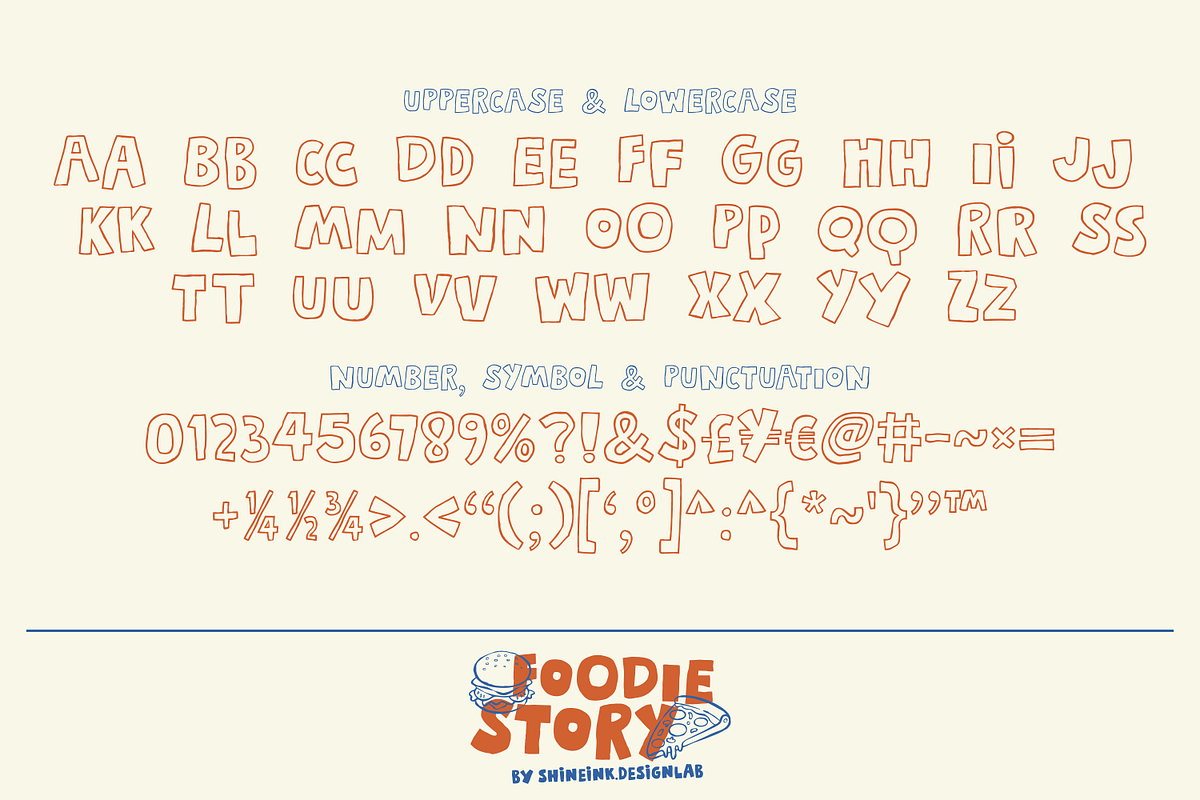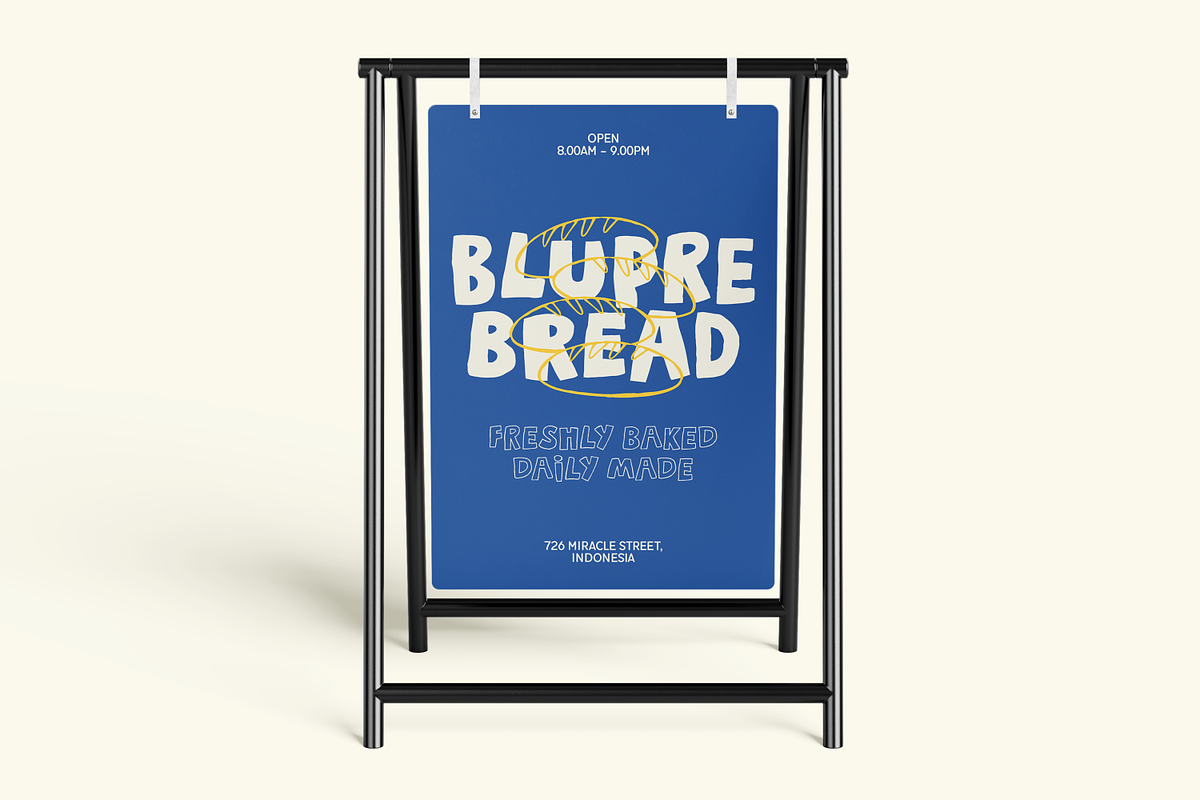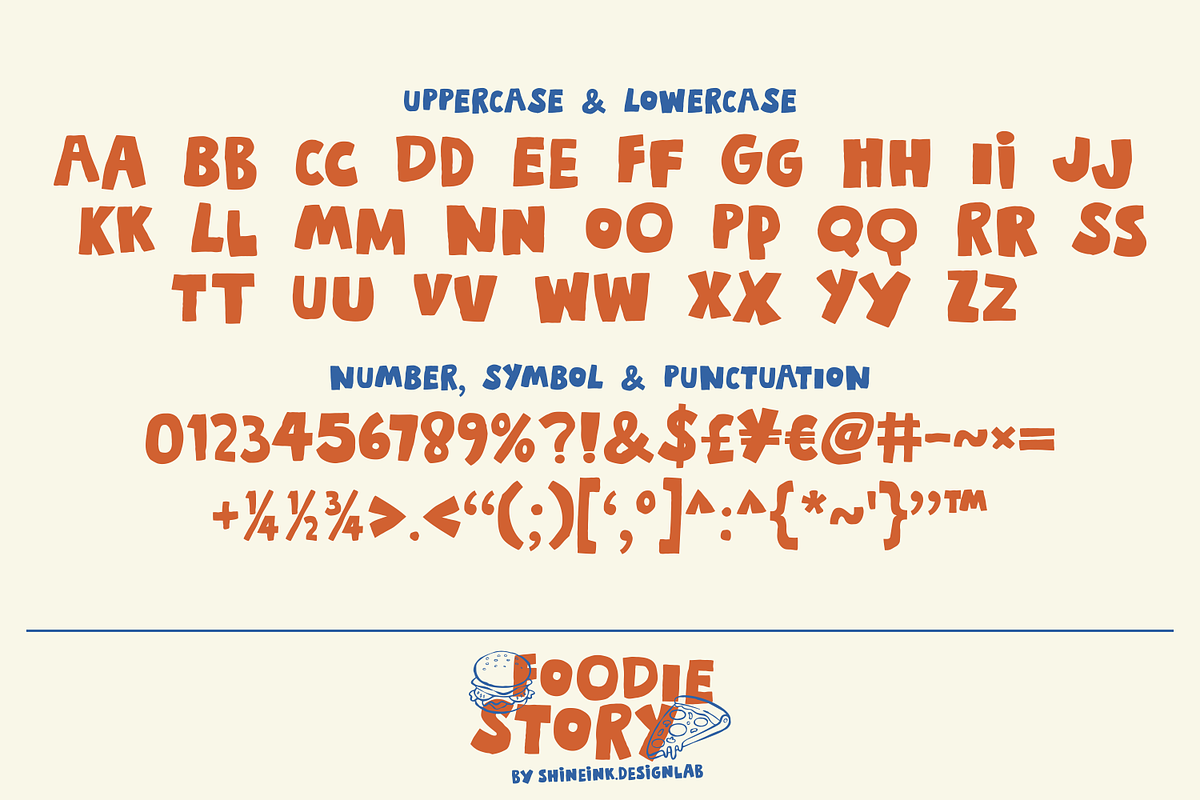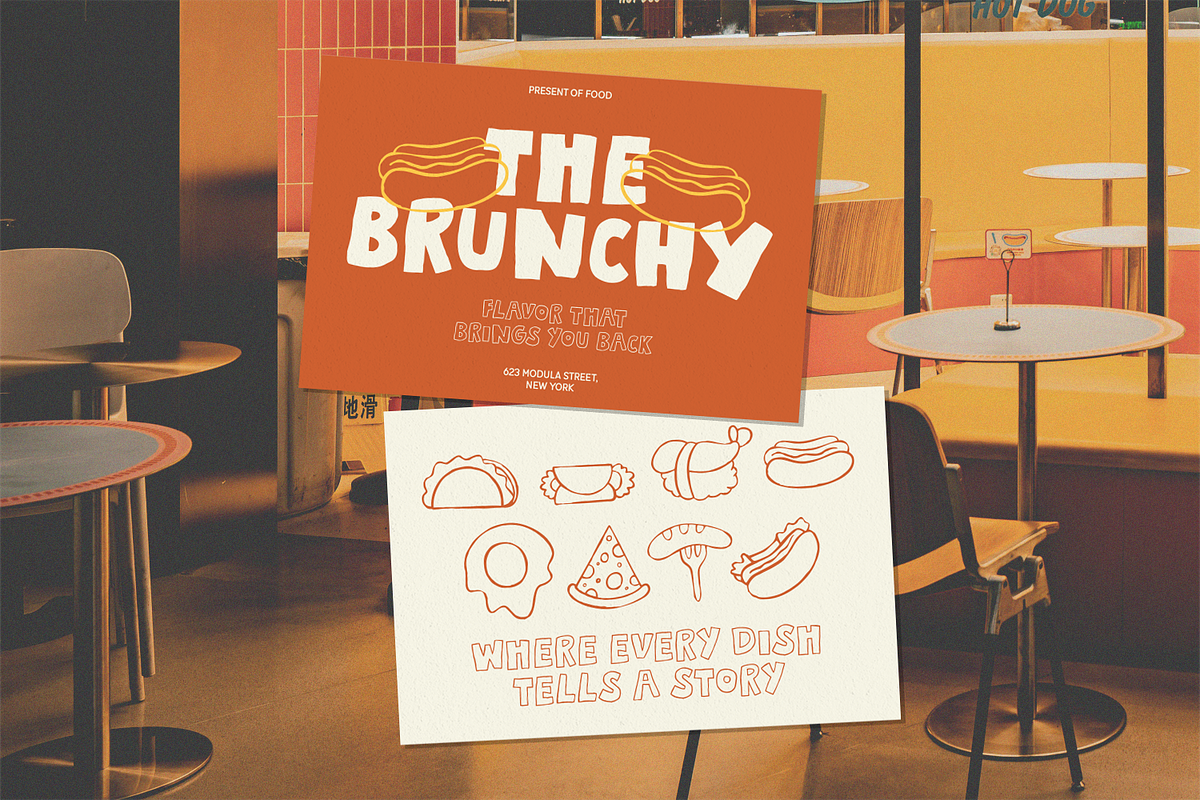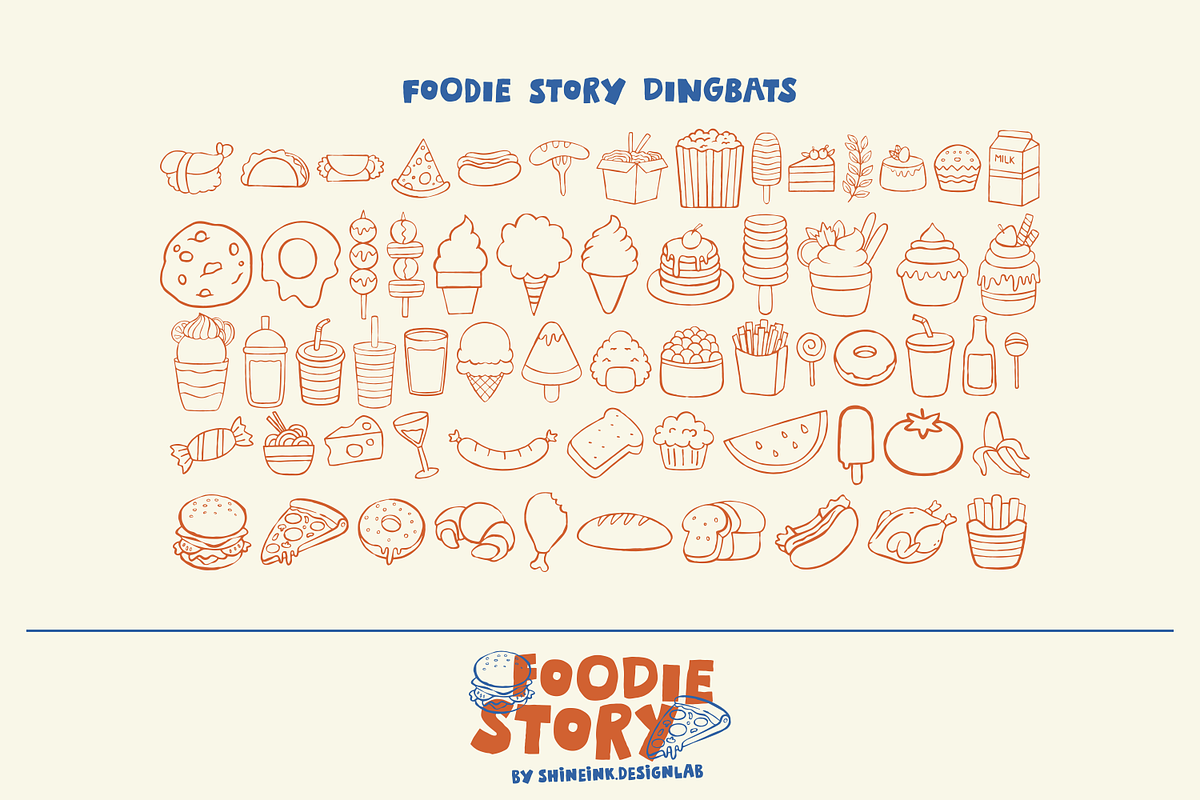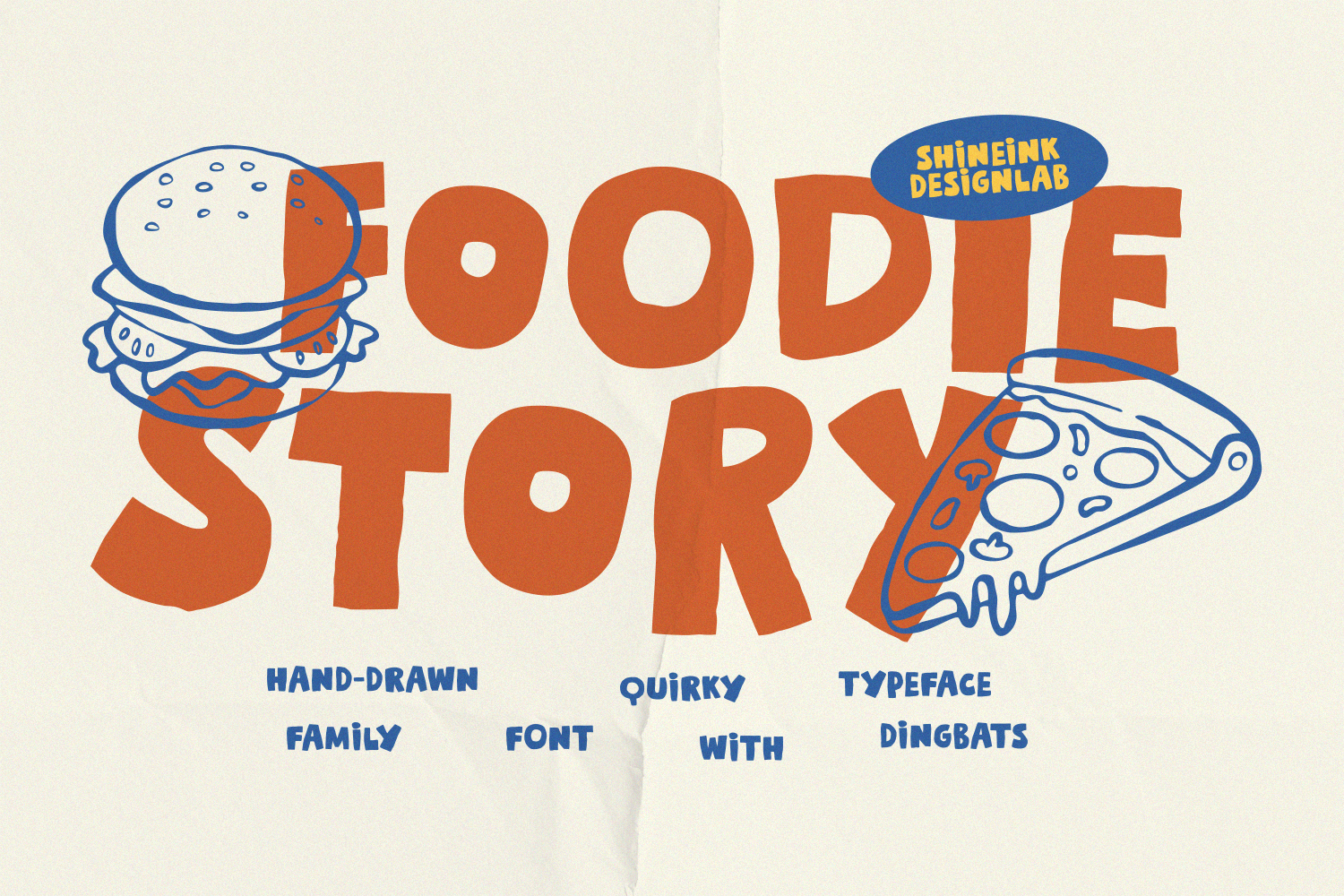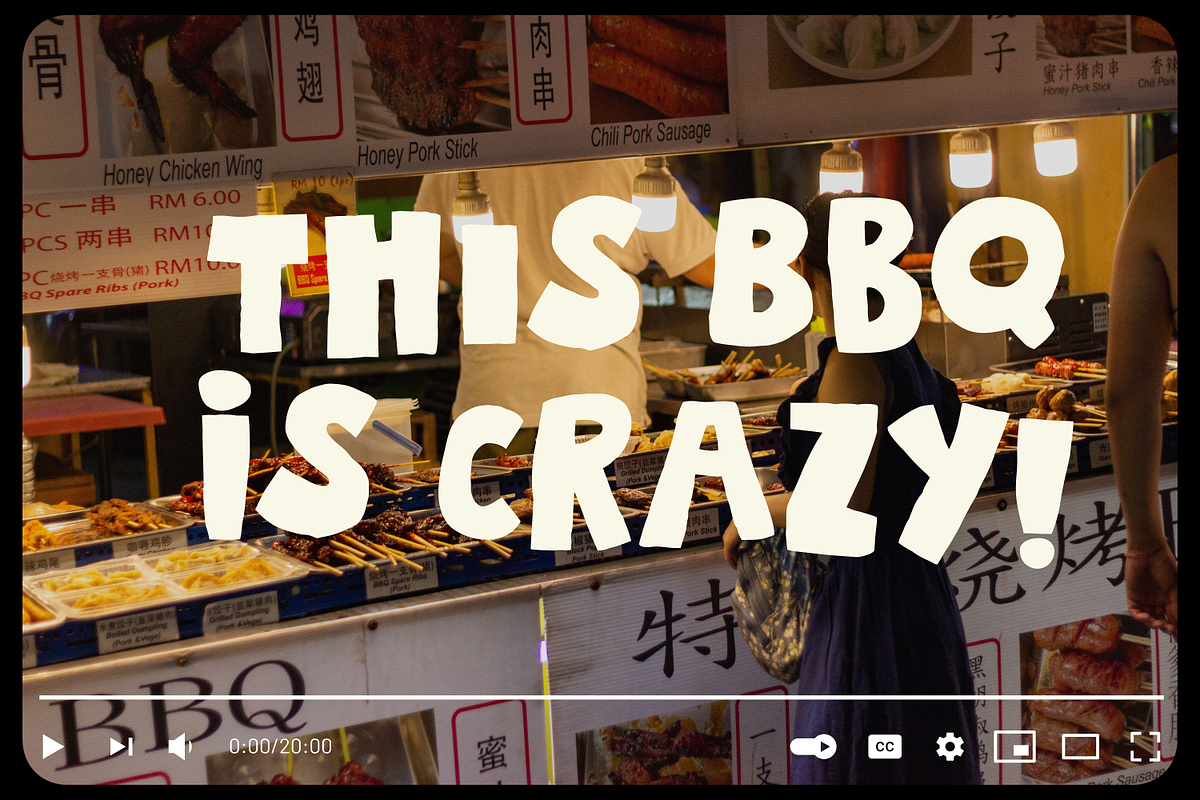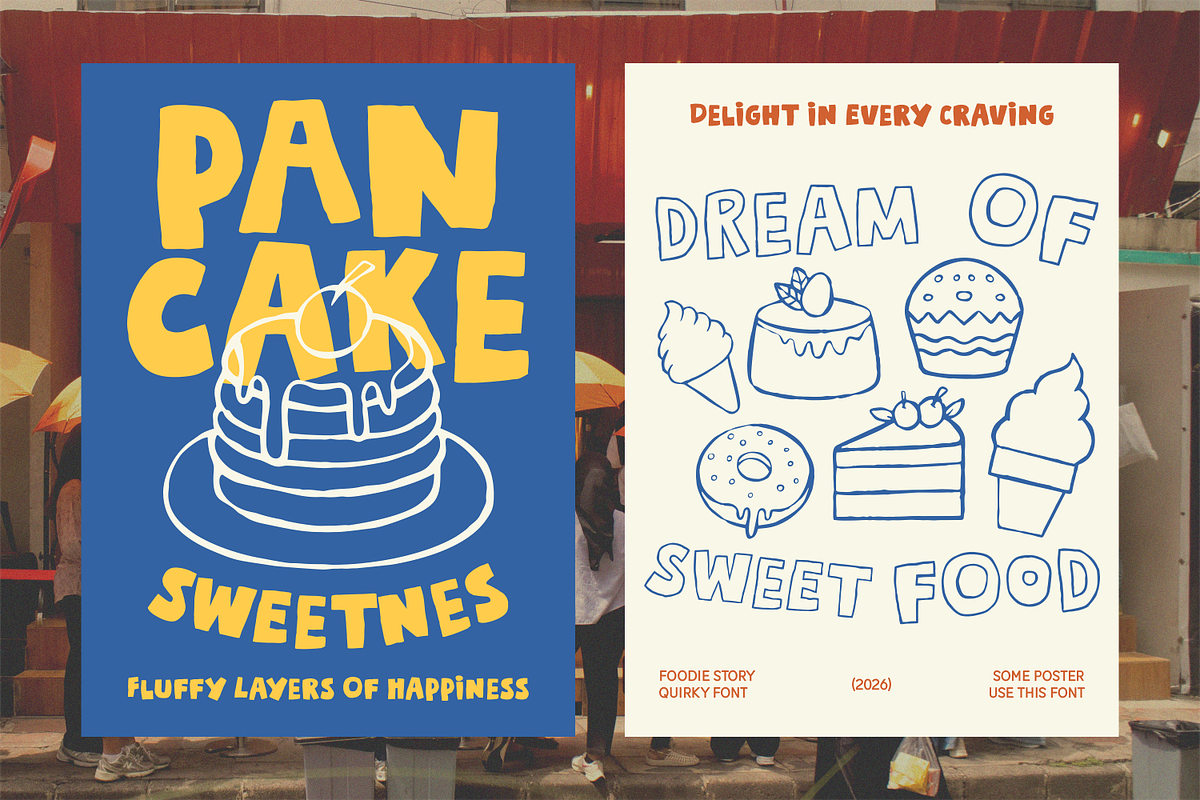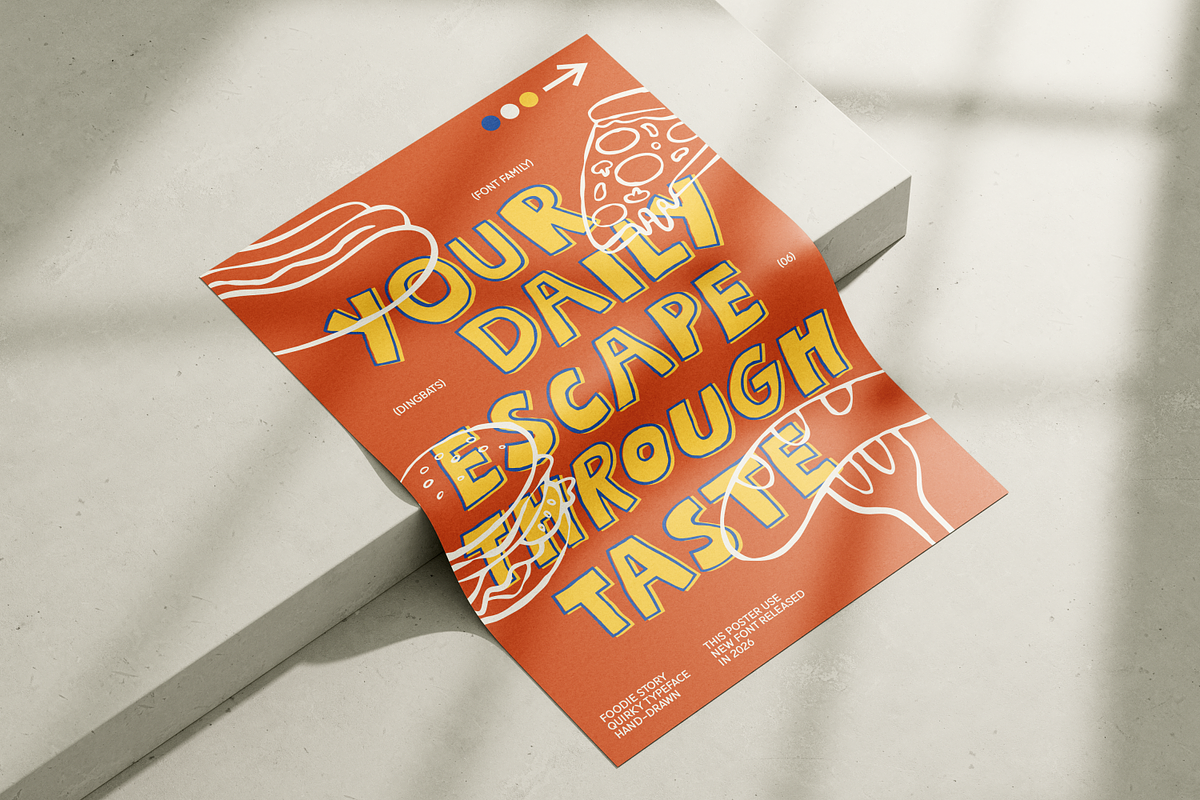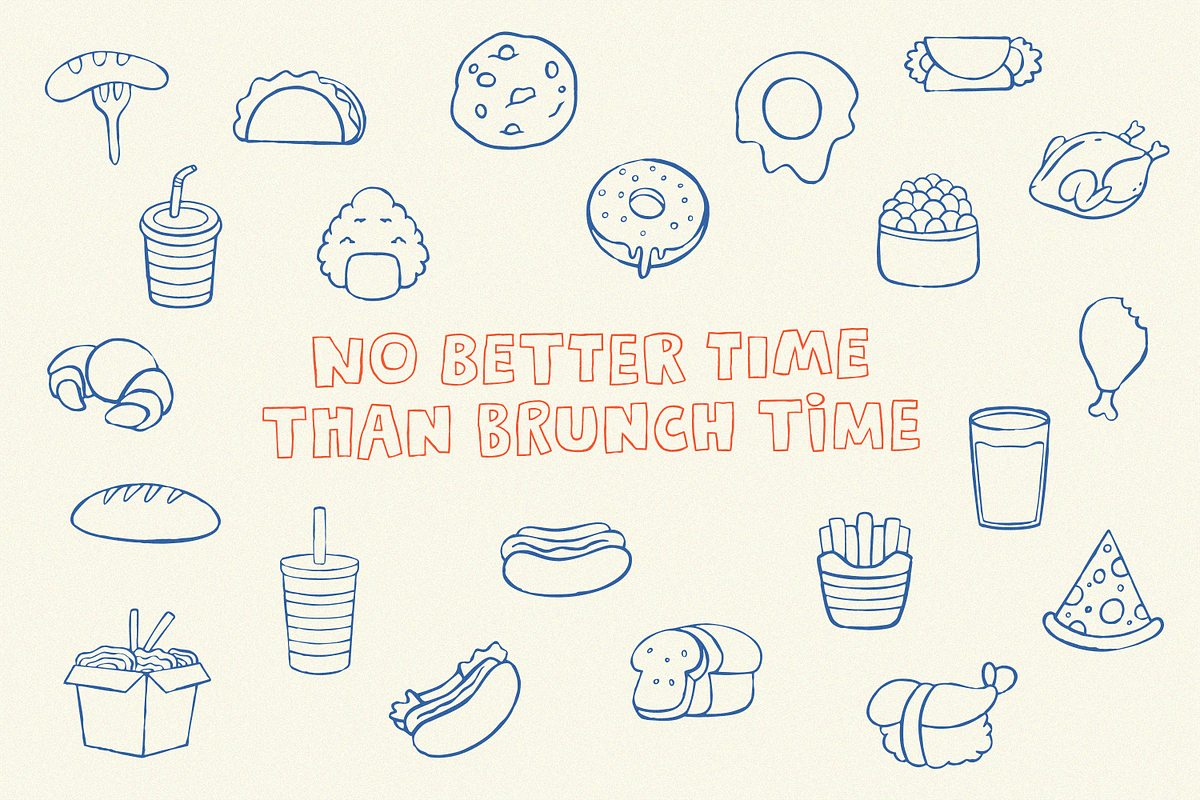
Foodie Story – Hand-Drawn Typeface
I'm present to you, a playful hand-drawn typeface with food theme dingbats, called Foodie Story!
Foodie Story a playful hand-drawn typeface inspired by fun food illustrations and bold storytelling vibes. Designed to bring warmth, character, and personality into your creative projects, this font is perfect for brands that want to stand out with a friendly and expressive touch.
With its chunky, organic letterforms and imperfect hand-crafted feel, Foodie Story delivers a natural, approachable look that feels authentic and full of charm. Every letter is carefully crafted to maintain consistency while keeping that raw, doodle-style personality.
The included dingbats collection features fun food illustrations that pair perfectly with the typeface, making your design process faster and more cohesive. Mix and match letters with the icons to create playful compositions in seconds.
Whether you're designing for a burger shop, pizza place, snack brand, or a fun kids project, Foodie Story adds bold personality and handcrafted warmth to your typography.
- Lowercase and Uppercase
- 3 Style Font : REGULAR, OUTLINE, DINGBATS